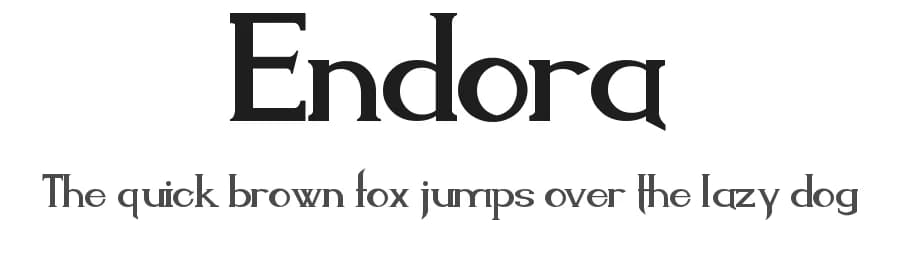
About Endora Font
My dearest effort to date and yes, it was named after Agnes Moorehead's devious character in Bewitched.
Endora Font is a versatile serif font that works for both headings and body text. Pair it with a contrasting sans-serif or slab serif font to add visual interest and a clear distinction between titles and body copy.